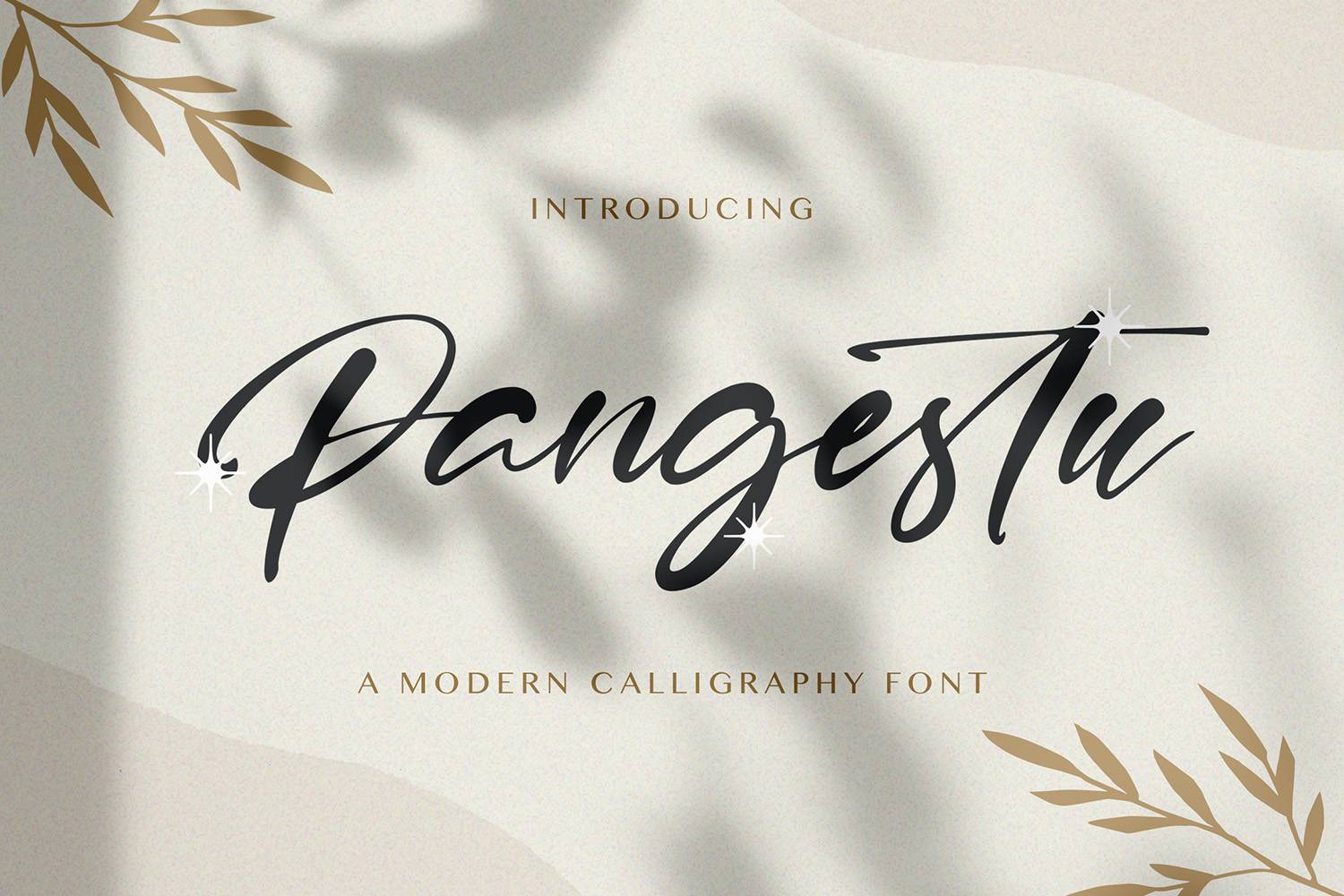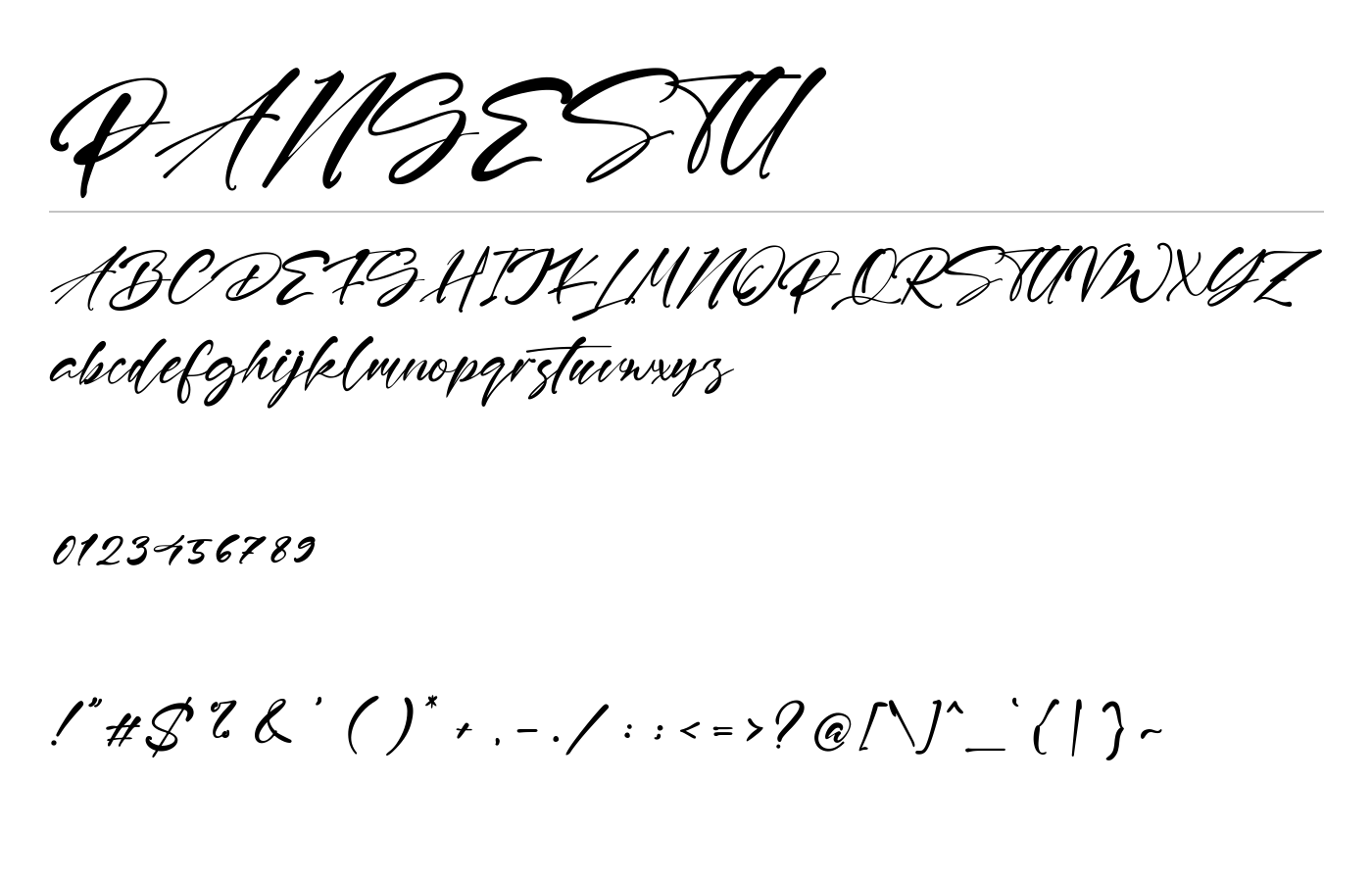
Pangestu is a stylish script font characterized by its elegant, flowing strokes and a dynamic, hand-drawn feel. With its slender, slightly slanted letterforms and natural variations in line thickness, it captures a modern yet personal and artistic vibe, making it perfect for invitations, branding, and creative projects that seek a sophisticated, handcrafted touch.
Pangestu Font